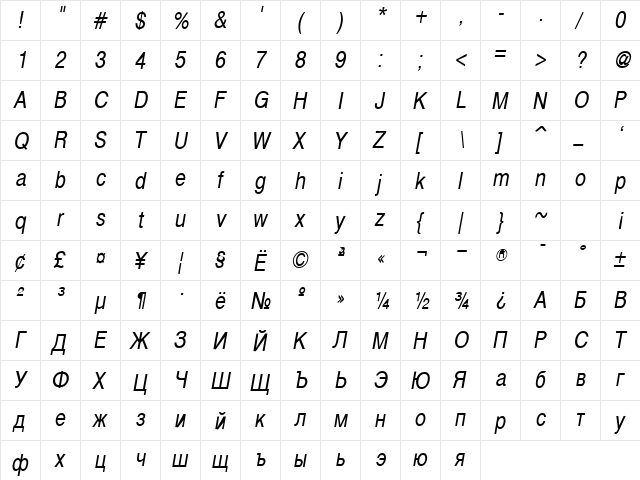
Cyrvetica-Narrow Oblique
Design Context for Cyrvetica-Narrow Typeface
Cyrvetica-Narrow offers clean, dependable letterforms without strong stylistic allegiance, making it a practical choice for designers who need flexibility. The slanted form adds forward momentum and visual energy. Its narrow stance lets it pack a punch even in space-constrained designs.
Pro Tip: Use Cyrvetica-Narrow for emphasis, pull quotes, and subheadings where its slanted energy can add rhythm to the layout.